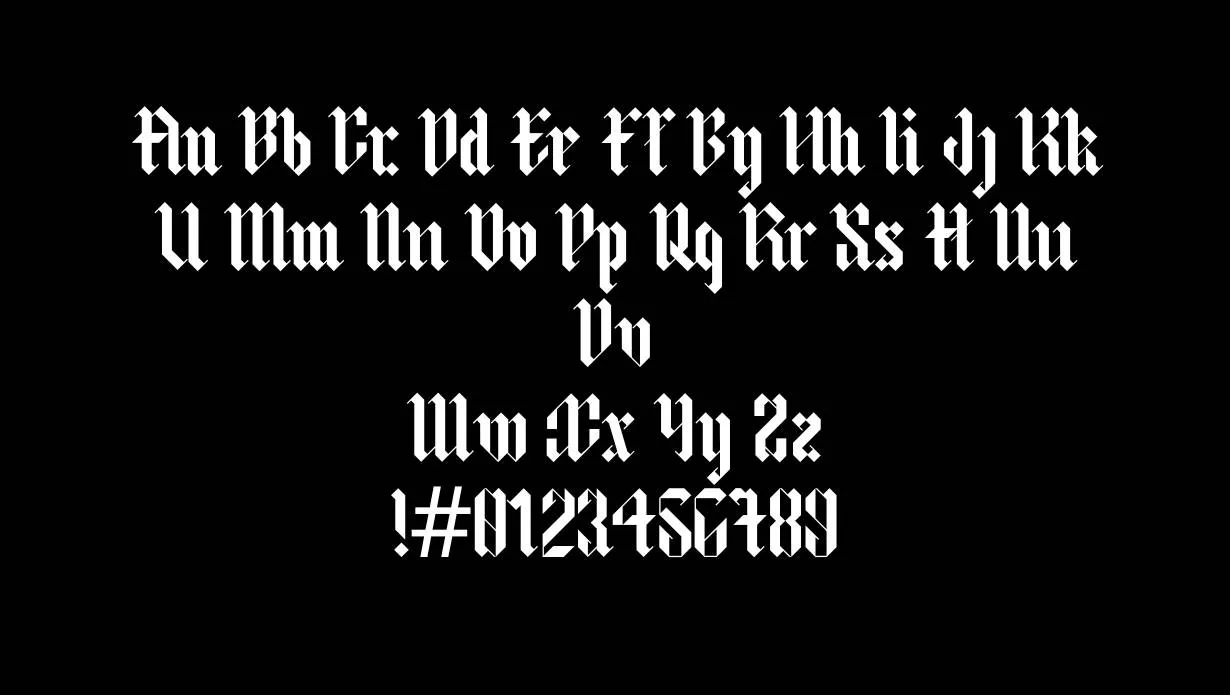
Arthur Black font is your go-to knight for making bold statements. Ideal for crafting eye-catching titles on posters and banners, it ensures your words stand out with strength and power.
| Style | Gothic |
The font’s weight is solid, giving your message a robust presence, while its balanced width provides a broad and impactful appearance. Let Arthur Black lead your text into the spotlight with its bold and clear expression.